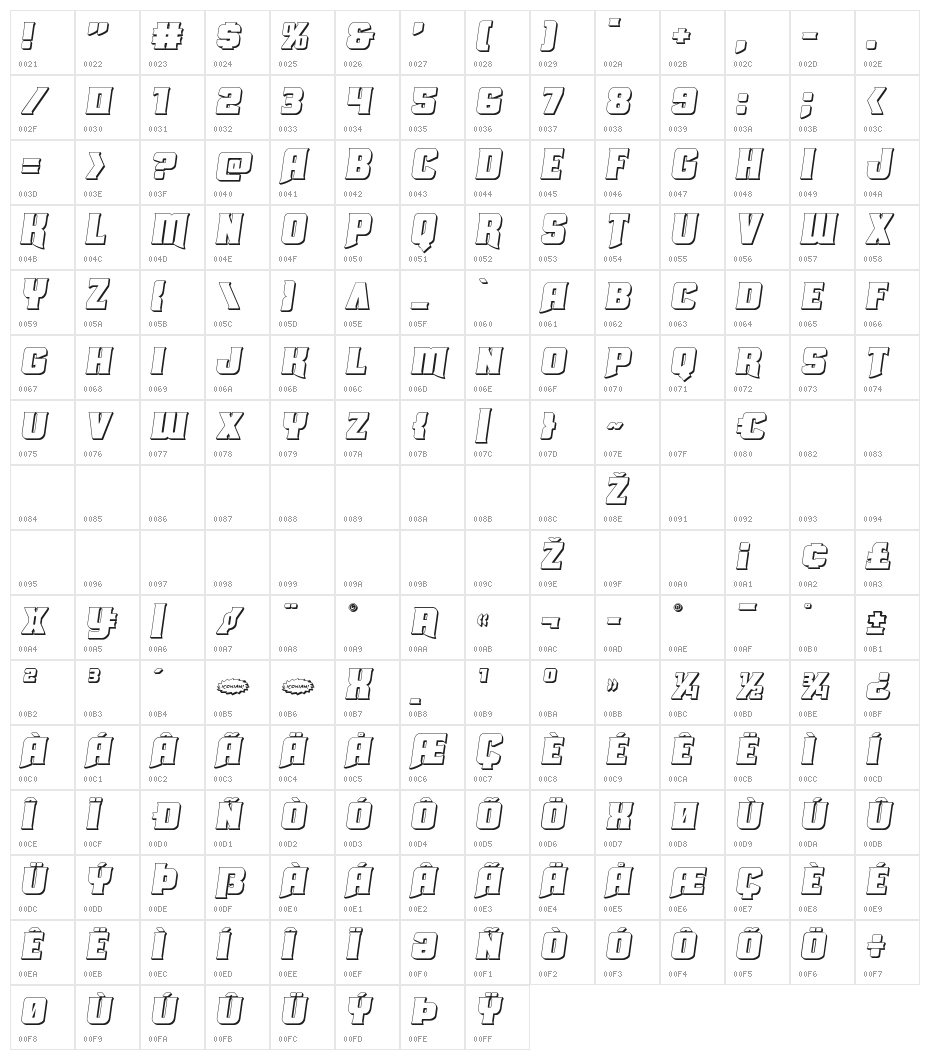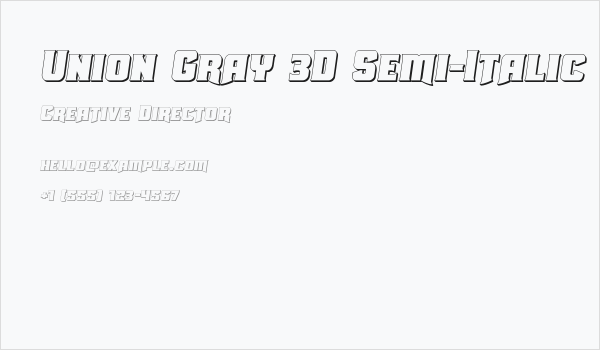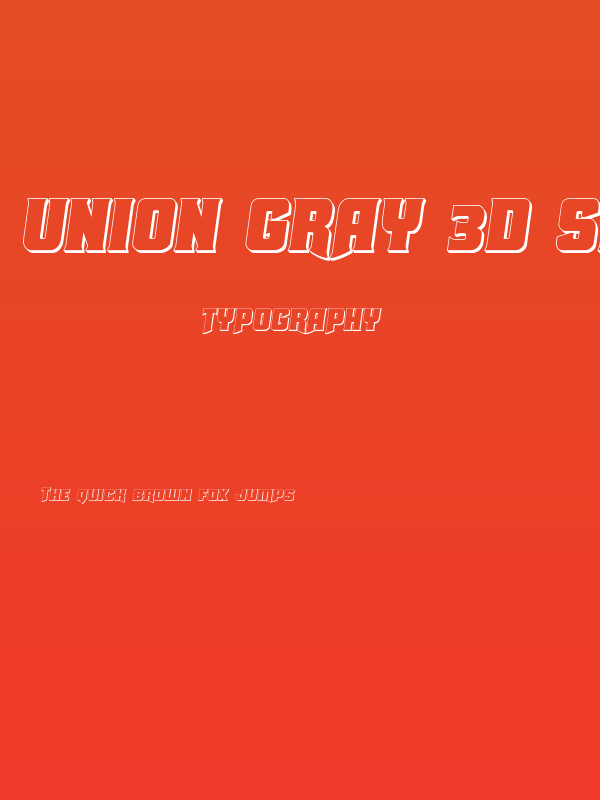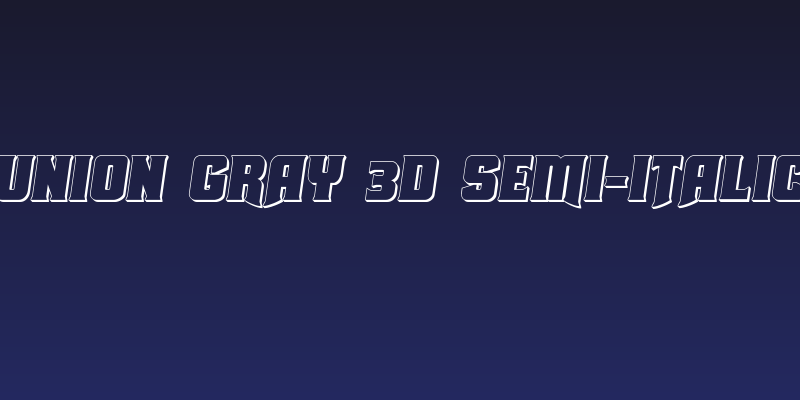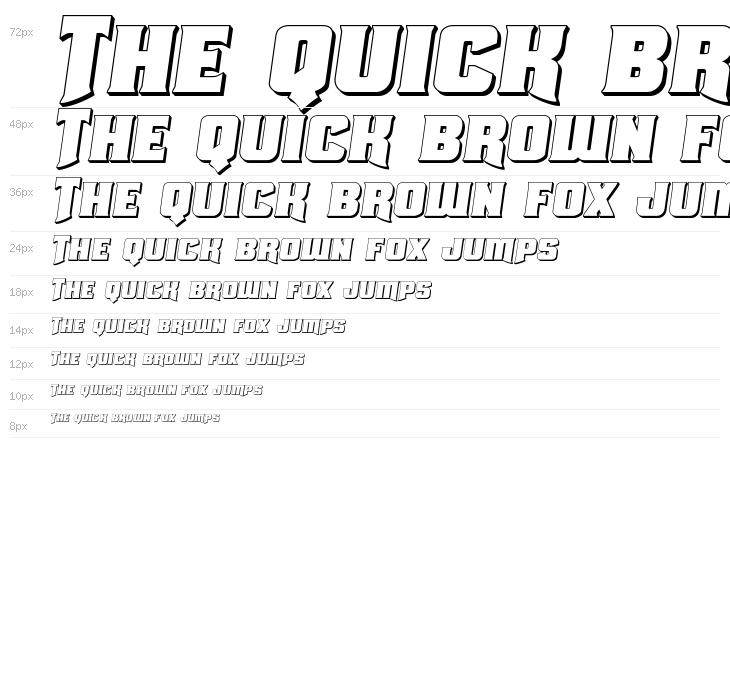
Union Gray 3D Semi-Italic Font
Union Gray 3D Semi-Italic Description
This font features a bold, three-dimensional style with a semi-italic slant, giving it a dynamic and impactful appearance. The characters are outlined, creating a shadow effect that enhances the 3D illusion. The design is consistent across uppercase letters, numbers, and special characters, maintaining a cohesive look. The font's boldness and unique style make it stand out, suitable for attention-grabbing designs. The semi-italic angle adds a sense of motion and modernity, making it ideal for contemporary projects.